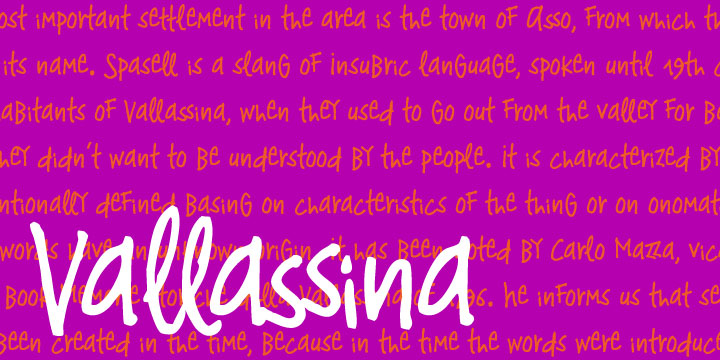
Vallassina is a hand drawn font published by Wilton Foundry.
Vallassina is named after Vallassina, a village in the valley of the upper tract of the river Lambro in northern Italy. The most important settlement in the area is the town of Asso, from which the valley takes its name. Spasell is a slang of Insubric language, spoken until 19th century by inhabitants of Vallassina, when they used to go out from the valley for business and they didn’t want to be understood by the people. Vallasina is confidently irreverent yet curiously attractive. How many ways can you use Vallassina to whistle to your neighbors? Vallasina is available in OpenType format.